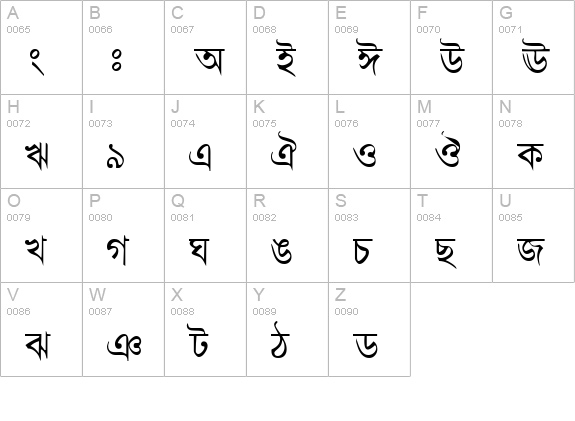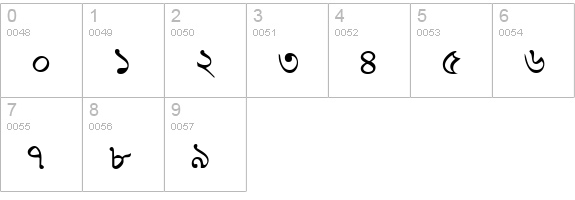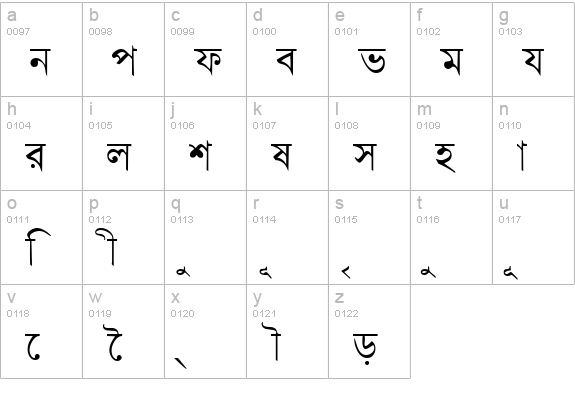
BengaliDhakaSSK Font Details
BengaliDhakaSSK font is a stunning and elegant typeface that captures the essence of traditional Bengali script with a modern twist. Its intricate strokes and curves make it perfect for adding a touch of sophistication to your designs. This font is not only visually appealing but also highly versatile, suitable for a wide range of projects including branding, packaging, invitations, and more. The best part is that BengaliDhakaSSK font is completely free to download at FontsMarket.com. You can easily access this beautiful font and enhance your creative projects without any cost. Don't miss out on the opportunity to elevate your designs with this exquisite typeface. Download BengaliDhakaSSK font today and let your creativity soar!